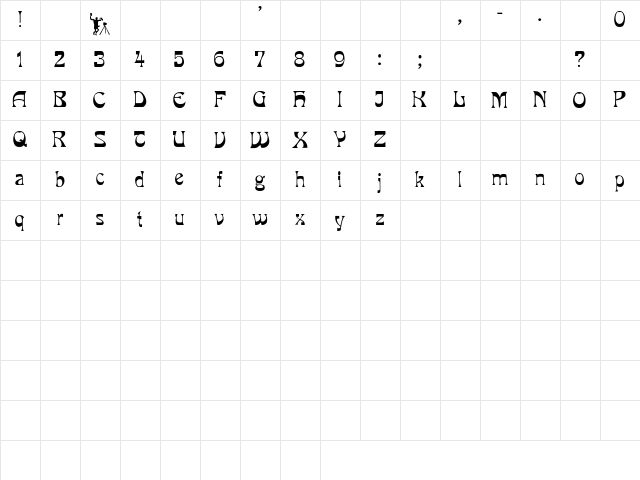
La Rosa Regular
Design Context for La Rosa
La Rosa is a composed and adaptable typeface that performs quietly and consistently across a wide range of design contexts.